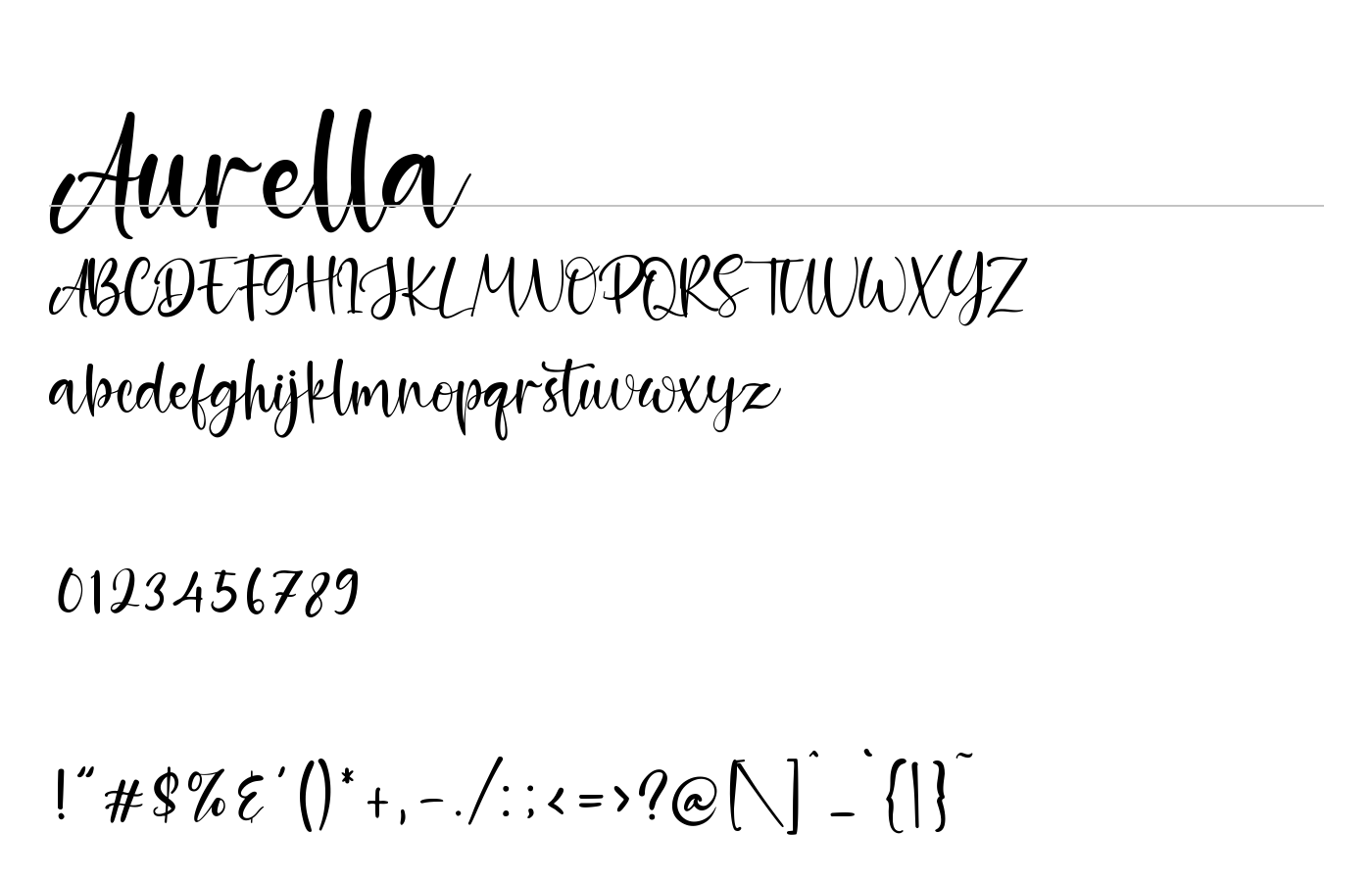
Aurella is a stylish script font with a hand-drawn, elegant feel, featuring smooth, flowing strokes and a medium weight that gives it a balanced and readable appearance. Its lively letterforms, with distinctive loops and subtle flourishes, make it perfect for creative branding, invitations, and feminine or artistic designs that seek a personal, refined touch. This font works well in headlines and logos, adding a warm, approachable sophistication to any project.
Aurella Font
About Aurella Font